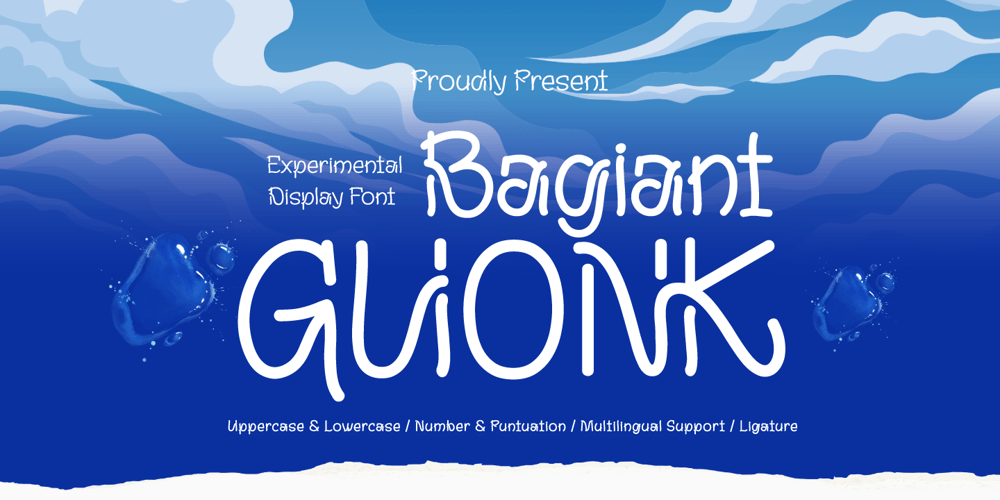
Bagiant Guonk Font Family was designed by Rozikan and published by Twinletter. Bagiant Guonk contains 1 styles and family package options. Bagiant Guong is an avant-garde experimental display font designed to break the boundaries of traditional typography. With bold, dynamic strokes and uniquely crafted letterforms, this font is a daring choice for creatives who want their designs to stand out. It’s perfect for projects that demand attention and convey innovation, such as cutting-edge branding, futuristic posters, conceptual artwork, and event promotions.Bagiant Guong celebrates asymmetry and unconventional shapes, making it an artistic statement on its own. Each letter carries an enigmatic and daring style that defies predictability, creating an aura of modern sophistication and fearless creativity. Its versatility allows it to be both the centerpiece of your project and a complementary detail for abstract compositions.Whether you’re crafting experimental visuals, a bold editorial layout, or even album artwork, Bagiant Guong offers you endless possibilities. Elevate your typography game with a font that speaks of rebellion, artistry, and ingenuity.